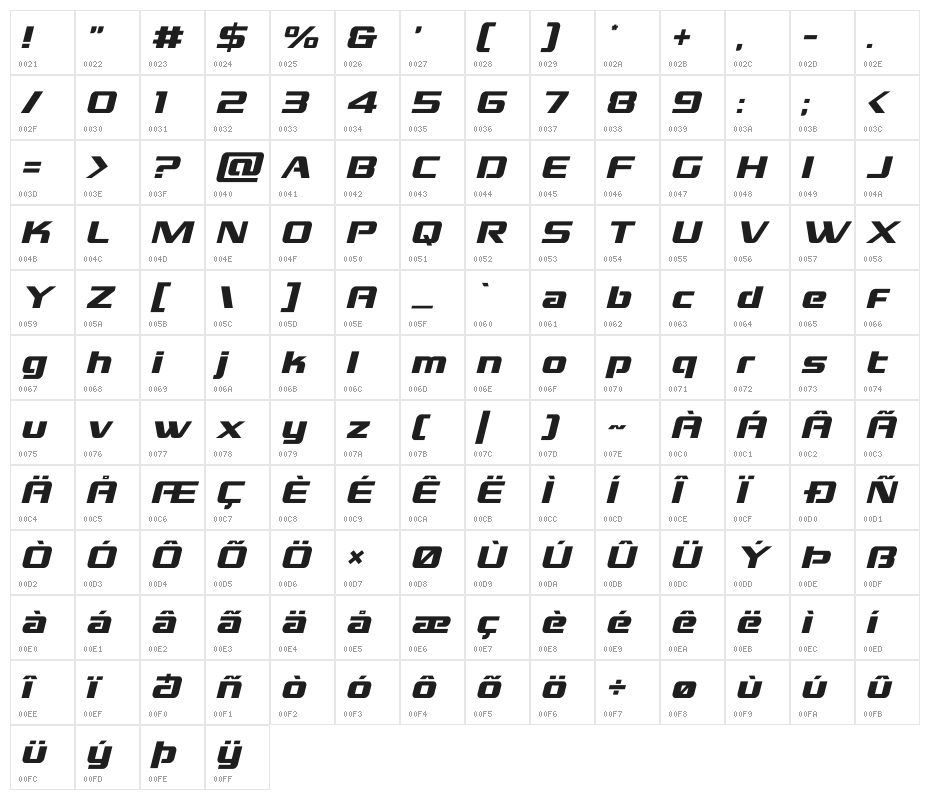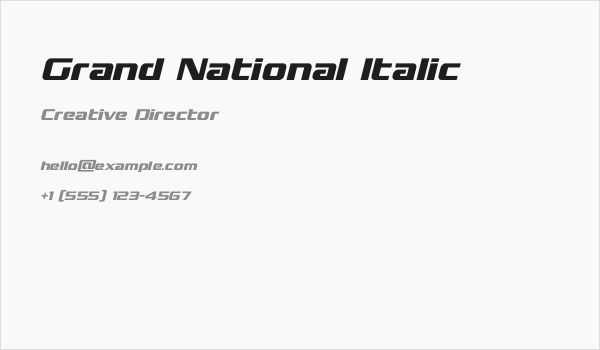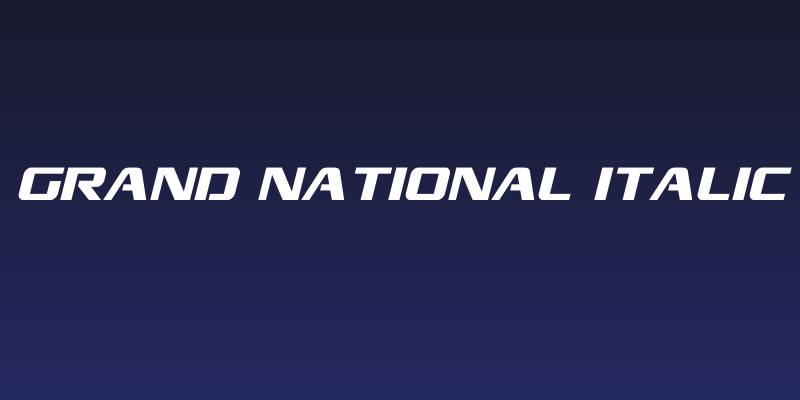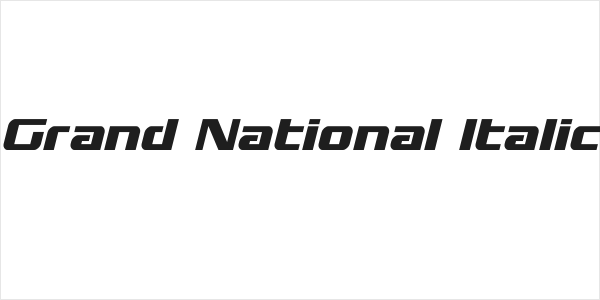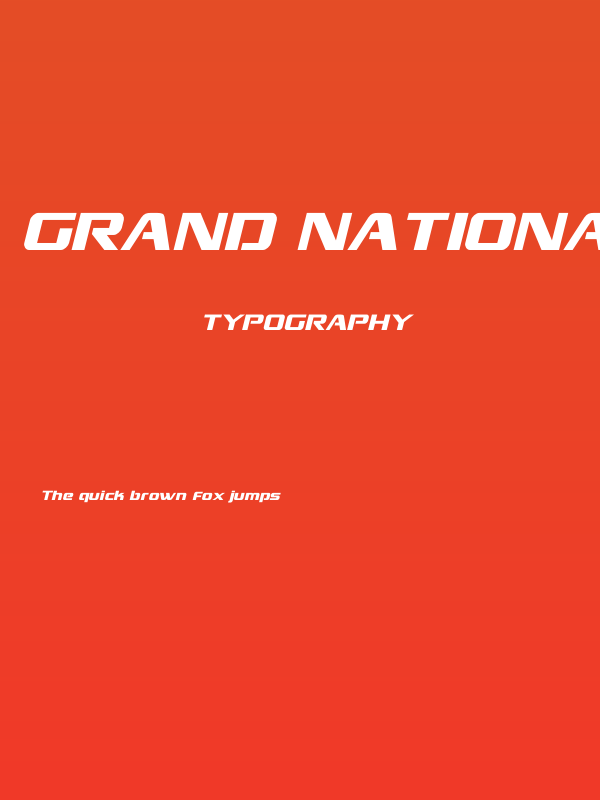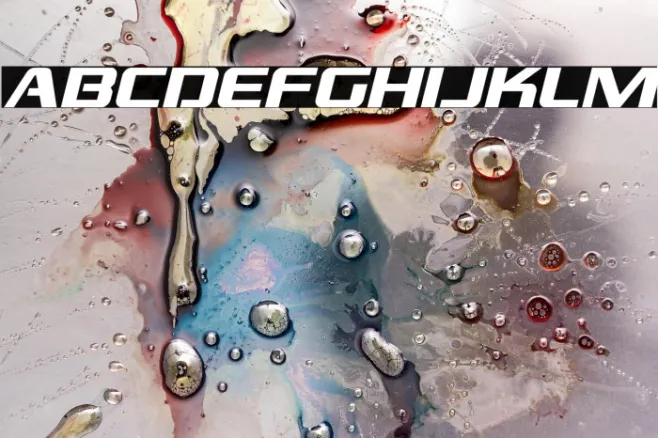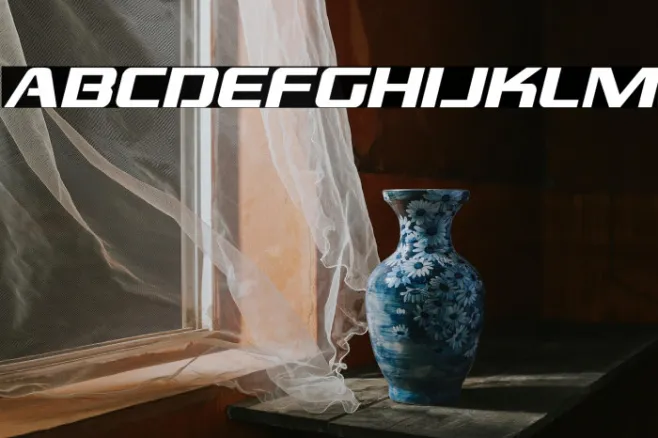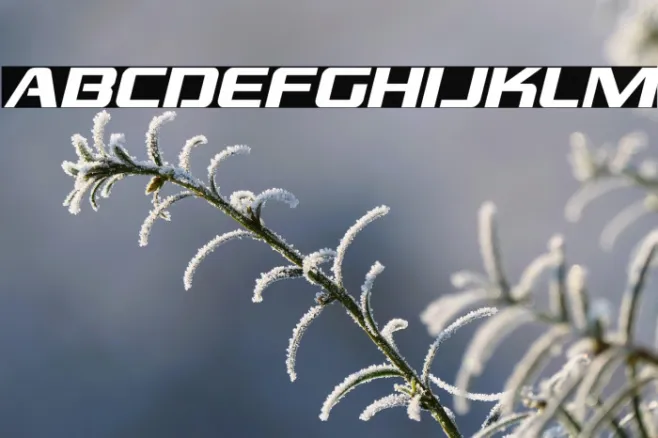
Grand National Italic Font
Grand National Italic Description
This font features a dynamic and modern italic style with a strong, angular design. The characters are slightly slanted, giving a sense of motion and speed. The uppercase letters are bold and prominent, while the lowercase letters maintain a consistent style with a slightly more compact form. The numbers are clear and legible, matching the overall aesthetic. Special characters are well-integrated, maintaining the font's cohesive look. The font's sharp edges and geometric shapes make it suitable for projects that require a contemporary and energetic feel.
| Proposed Projects | Ideal for sports branding, automotive designs, dynamic posters, and modern advertising. |